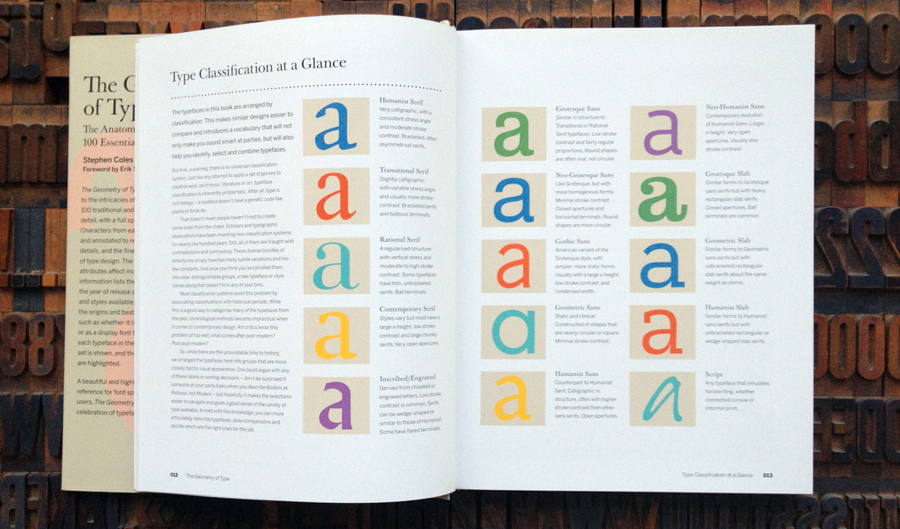
“The Geometry of Type”, 100 typefaces explained by typographer Stephen Coles
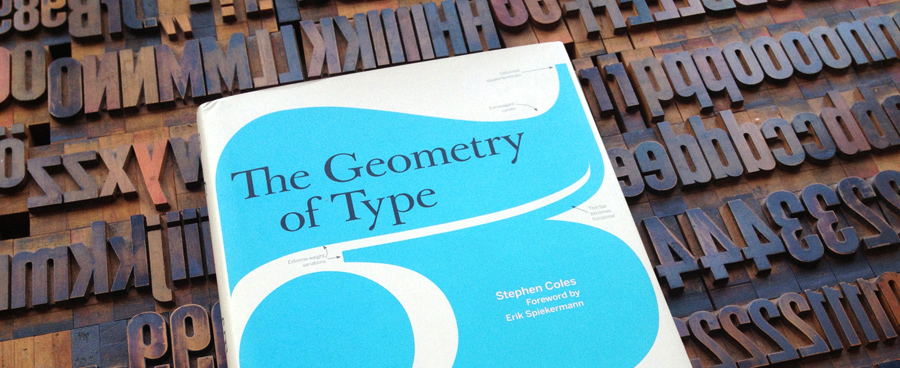
If you enter the field of typography today, you are very likely overwhelmed by the diversity of the available typeface. You can choose from over 20.000 type families at MyFonts alone. How should one ever get to understand the differences in style and quality and learn how to chose the right typefaces for a certain job?
You need to start somewhere. Beginners often ask about the “essential typefaces” one needs to know or needs to have. But which typefaces are the essential ones? The classics from the era of metal typesetting? The bestsellers of today? The most promising newcomers? There is no simple answer.
It is helpful to have a teacher who knows the font market through and through—someone like Stephen Coles. He was a creative director at FontShop San Francisco and is known for his typography blog Typographica. A recent project he started together with Sam Berlow and Nick Sherman is Fonts in Use.
In his book “The Geometry of Type” Stephen Coles takes a look at the anatomy of 100 essential typefaces. The book starts out with some background information about type terms and type classification. But these parts only cover around 20 pages …
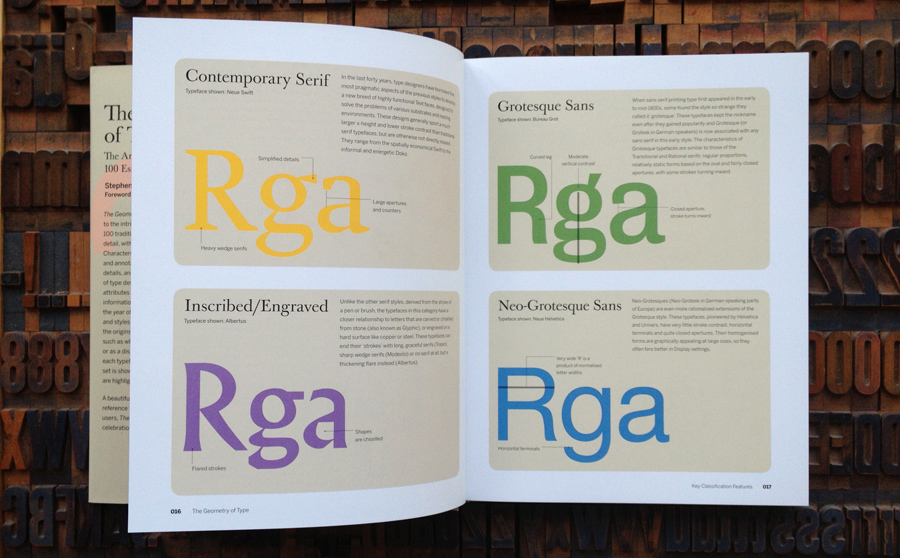
The rest of the book will look like the spread on the following picture. Typefaces from all classification categories are introduced on two pages each.
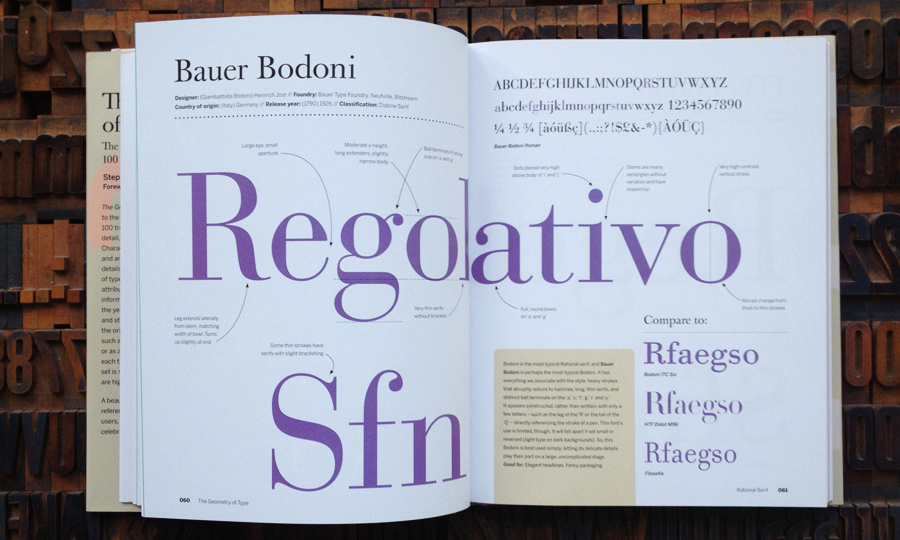
A short description text will give you background information about the creation of the typeface and what a recommendable use for it would be. The special features of the type design are explained using large annotated type samples.
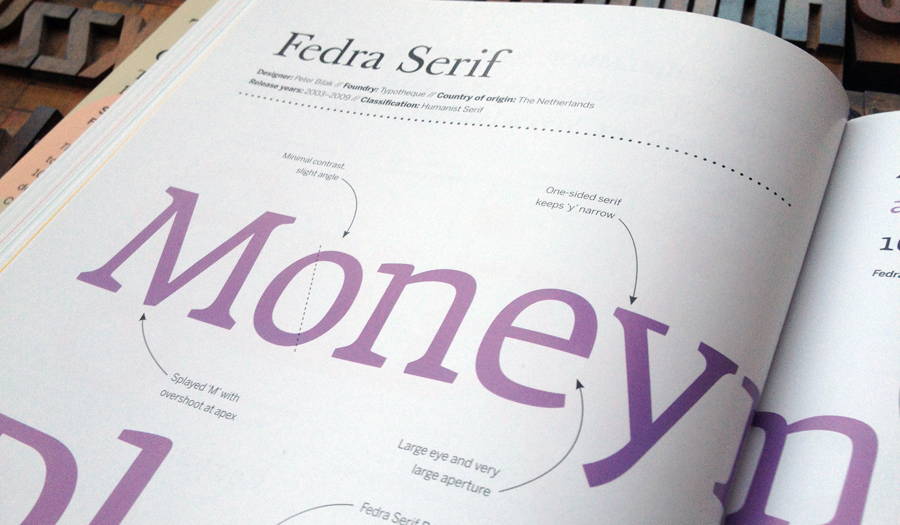
The book is easily accessible to anyone with an interest in typography. It’s not a textbook with long copy texts, but you will definitely learn a lot about the tiny details of type design and why they are matter when choosing a typeface for a certain project.
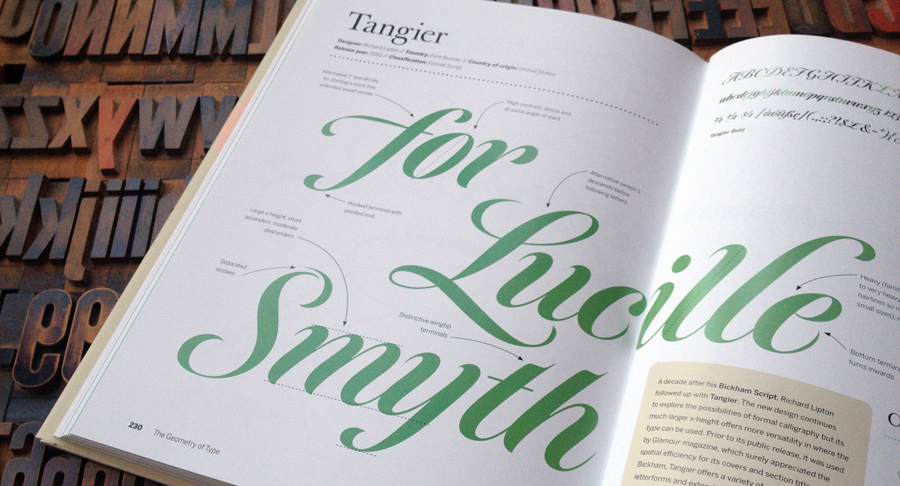
The 100 typefaces introduced in this book are:
- Adobe Jenson, Cala, Bembo Book, FF Clifford, FF Scala, Lexicon, Minion, Garamond Premier, MVB Verdigris, Adobe Caslon, Baskerville Original, Mrs Eaves, Plantin, Arnhem, Times New Roman, Le Monde Journal, Bauer Bodoni, ITC Bodoni, H&FJ Didot, Filosofia, Farnham, New Century Schoolbook, Miller, Eames Century Modern, Ingeborg, Melior, Neue Swift, Skolar, Fedra Serif, FF Meta Serif, Doko, Luxury Diamond, Albertus, Modesto, Trajan, Berau Grot, Knockout, FF Bau, Univers, Neue Helvetica, Akkurat, National, Antique Olive, Bell Centennial, News Gothic, Benton Sans, Whitney, Futura ND, Avenir, Gotham, ITC Avant Garde, Calibre/Metric, FF DIN, Interstate, Verlag, Klavika, MVB Solano Gothic, Forza, Gill Sans, FF Yoga Sans, Frutiger, Myriad, Verdana, Syntax, Cronos, TheSans, Auto, Optima, Beorcana, FF Meta, Amplitute, Fedra Sans, FF Dax, FF Balance, Giza, Clarendon, Farao, Heron Serif, Archer, Neutraface Slab, Rockwell, PMN Caecilia, FF Unit Slab, Adelle, Freight Micro, Kinescope, Studio Slant, Radio, Bickham Script, Tangier, Suomi Hand Script, Nitti, Ed Interlock, Bree, Rumbe, Trade Gothic Condensed Bold No. 20, Heroic Condensed, Cabazon, SangBleu, Marian
It’s a mix of classics, popular fonts of today and some typefaces which are probably just personal favorites of the author. After you have read the book, you will not have a complete overview of today’s font market—there are hundreds of other noteworthy typefaces out there. But you will have learned what details matter, how they relate to each other and what characteristics and features you will have to look for in each type category. And that’s a great starting point to explore the exciting world of fonts further.
This book is on the market with two different titles: “The Geometry of Type” and “The Anatomy of Type”.